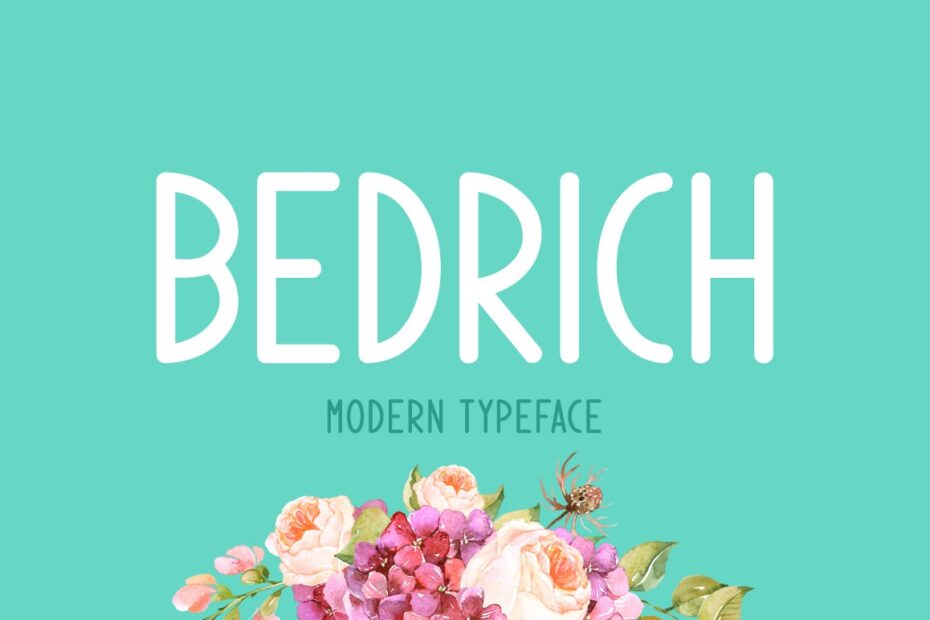
Discovering the Perfect Canvas
As creatives, we’ve all been there – staring at a blank page, waiting for inspiration to strike. The cursor blinks, taunting us, as our minds wander to the perfect font, the perfect color scheme, and the perfect layout. It’s a moment of pure creative bliss, when everything comes together in harmony. And for designers, finding the perfect font can be the game-changer that elevates their work from good to great.
Enter the Bedrich Font, a simple yet elegant typeface that brings a touch of sophistication to any design. With its smooth exterior and clean lines, Bedrich Font is perfect for designers looking to create a professional and timeless look. Whether you’re working on a corporate brochure, a wedding invitation, or a website, Bedrich Font is a versatile choice that will never go out of style.
Key Features of Bedrich Font
• Font Family: Bedrich is a sans-serif font family designed for modern and minimalist designs.
• Character Set: Includes a wide range of characters, including Latin, Cyrillic, and Greek alphabets, as well as punctuation marks and symbols.
• Unique Characteristics: Bedrich features a clean and geometric design, with a distinctive x-height and a subtle emphasis on the vertical axis, giving it a modern and sophisticated feel.
Bedrich Font Review
As a designer, I’ve had the chance to work with various fonts, and the Bedrich Font is one that caught my attention. Here’s my honest review:
• The font’s elegant and refined look is perfect for creating a sophisticated atmosphere in branding and design projects.
• Bedrich Font is highly legible, making it suitable for body text and other content areas where readability is crucial.
• The font’s OpenType features allow for advanced typography and formatting options, giving designers more creative control.
• The font’s limited character set and support for non-Latin scripts may be a hindrance for international projects or those requiring complex character sets.
• The font’s weight range is somewhat limited, which may not be ideal for projects requiring a wide range of weights and styles.
Bedrich Font is a solid choice for designers seeking a refined and elegant typography solution. While it has some limitations, its strengths make it a great fit for various design projects, from branding and advertising to editorial and publishing.
Bedrich Font is ideal for creating elegant and sophisticated designs in Canva, such as wedding invitations, business cards, and brochures.
Bedrich Font is perfect for creating intricate and detailed designs in Adobe Photoshop or Illustrator, such as typography-based art, logos, and graphics.
Bedrich Font is great for creating professional-looking presentations and documents in PowerPoint or Word, such as reports, proposals, and resumes.
For the best results, use Bedrich Font in conjunction with high-quality images and graphics. Experiment with different font sizes, colors, and styles to create unique and eye-catching designs.
Bedrich Font is a unique, hand-drawn font known for its elegant and sophisticated look. If you’re looking for alternatives, consider the following options:
Playfair Display is a luxurious, high-end font with a vintage flair. It’s ideal for creating opulent, high-fashion designs, such as luxury branding, magazine covers, or special event invitations. Unlike Bedrich Font, Playfair Display is more dramatic and ornate, with intricate details and flourishes.
Q: What is the recommended font size and line height for optimal readability with the Bedrich Font?
For optimal readability, we recommend using a font size between 12 and 14 points, with a line height of at least 1.5 times the font size. This will ensure that the text is easy to read on digital devices and provides a comfortable reading experience.